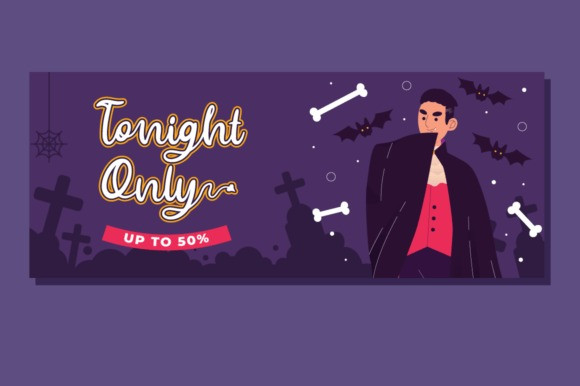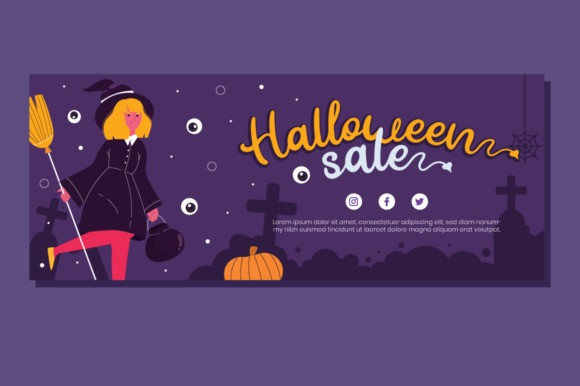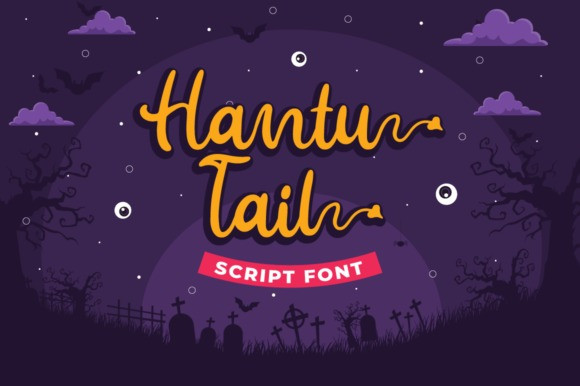
Hantu Tail Font
Hantu Tail Font by attypestudio 13,869 downloads
Hantu Tail Font
Hantu Tail Script Font is a distinct and incredibly fun Halloween script font. Fall in love with its incredibly versatile style and use it to create spectacular designs!